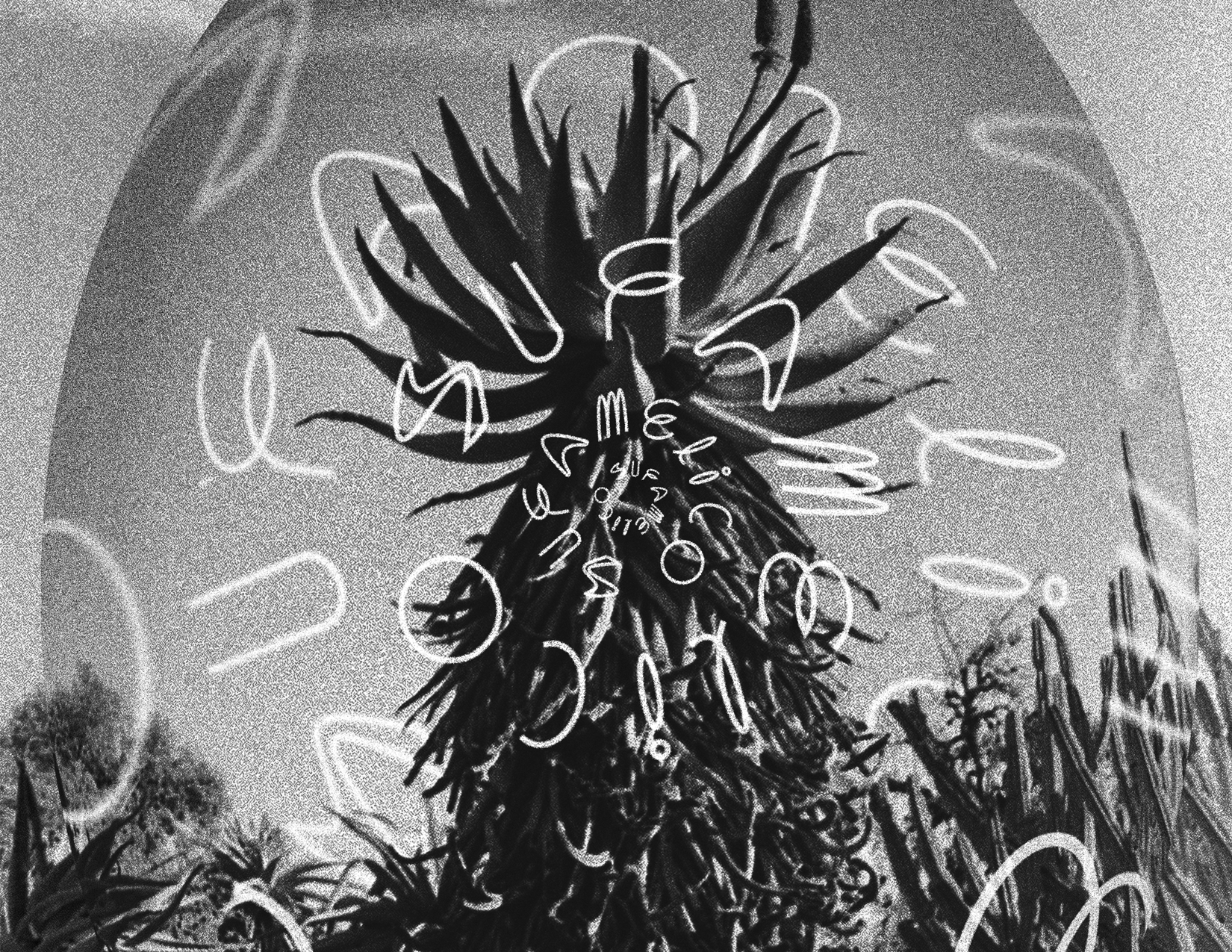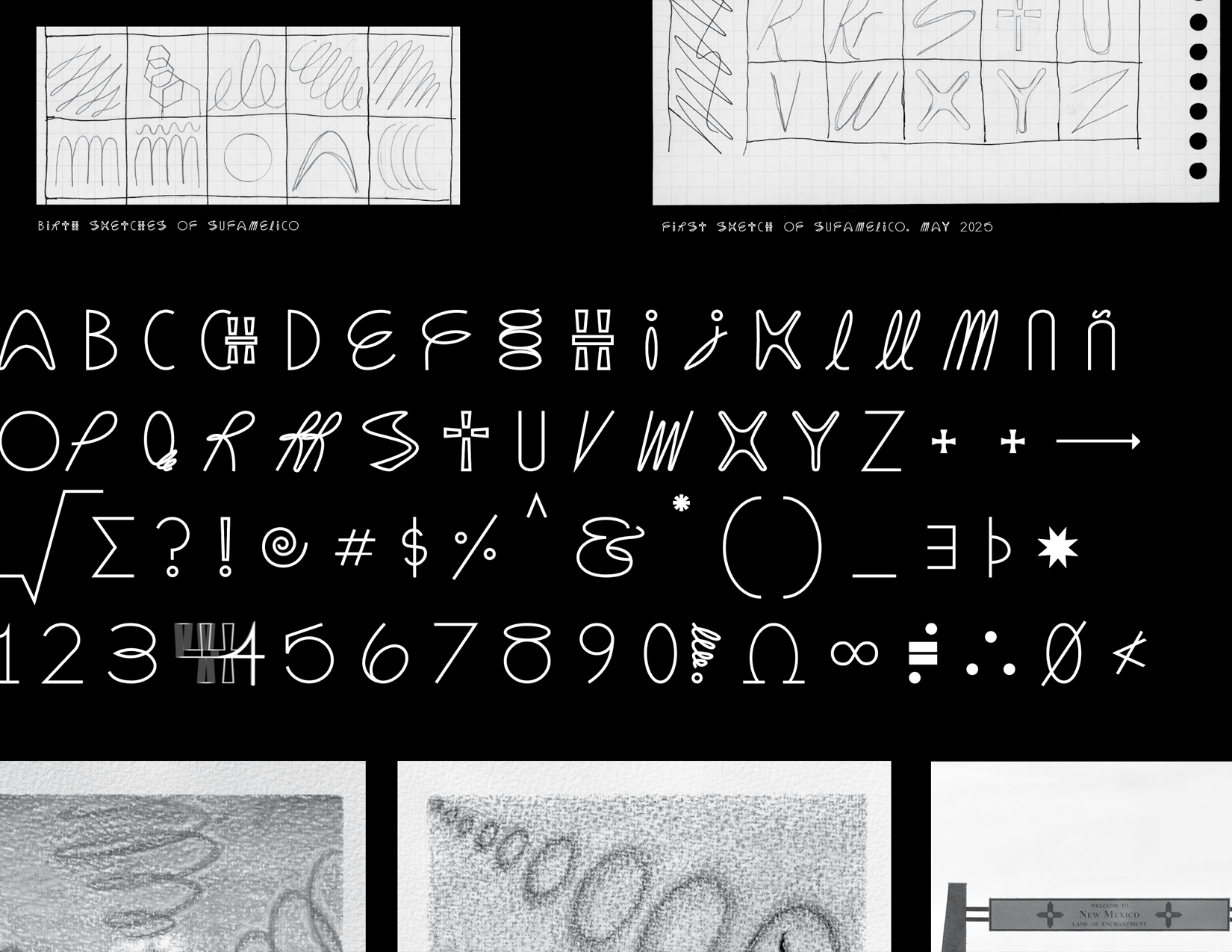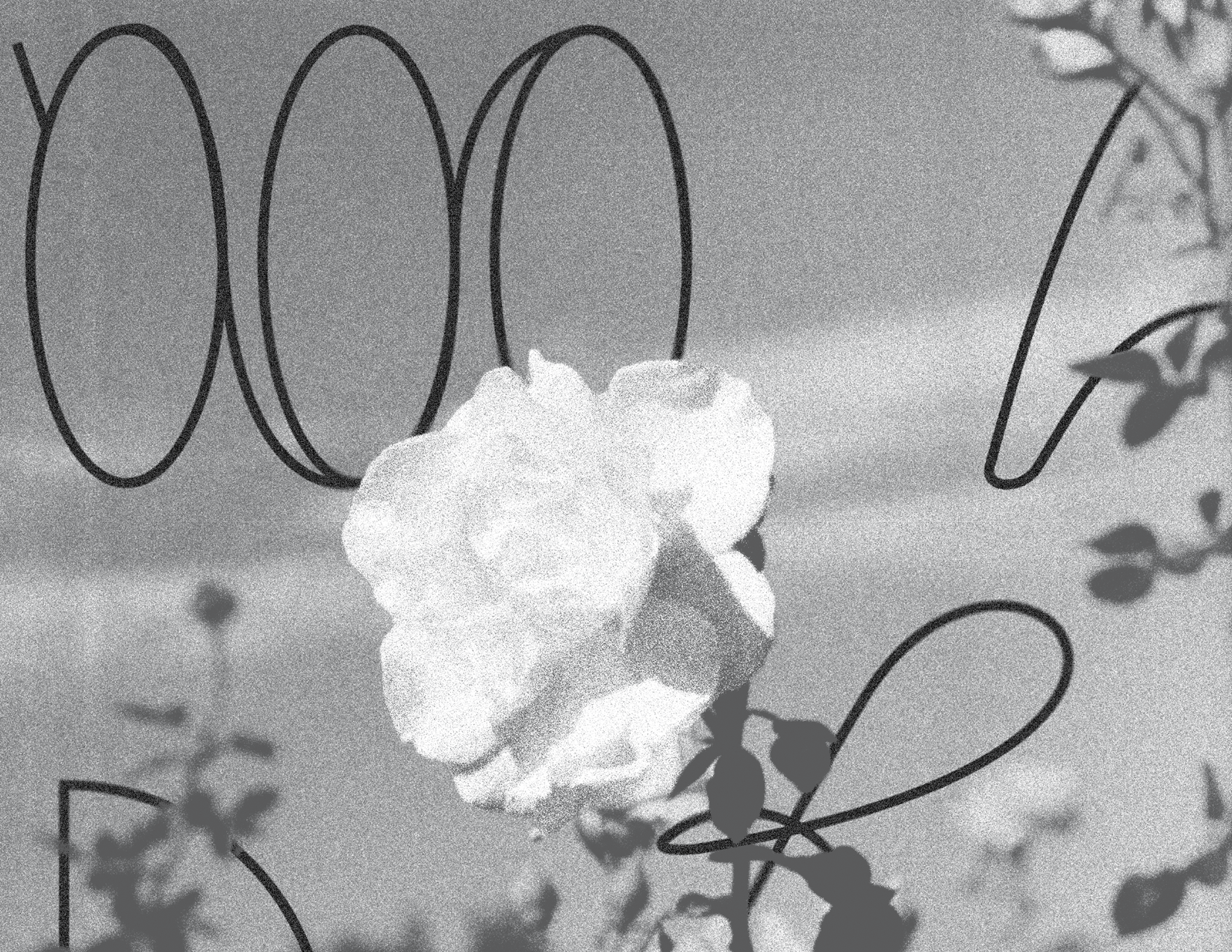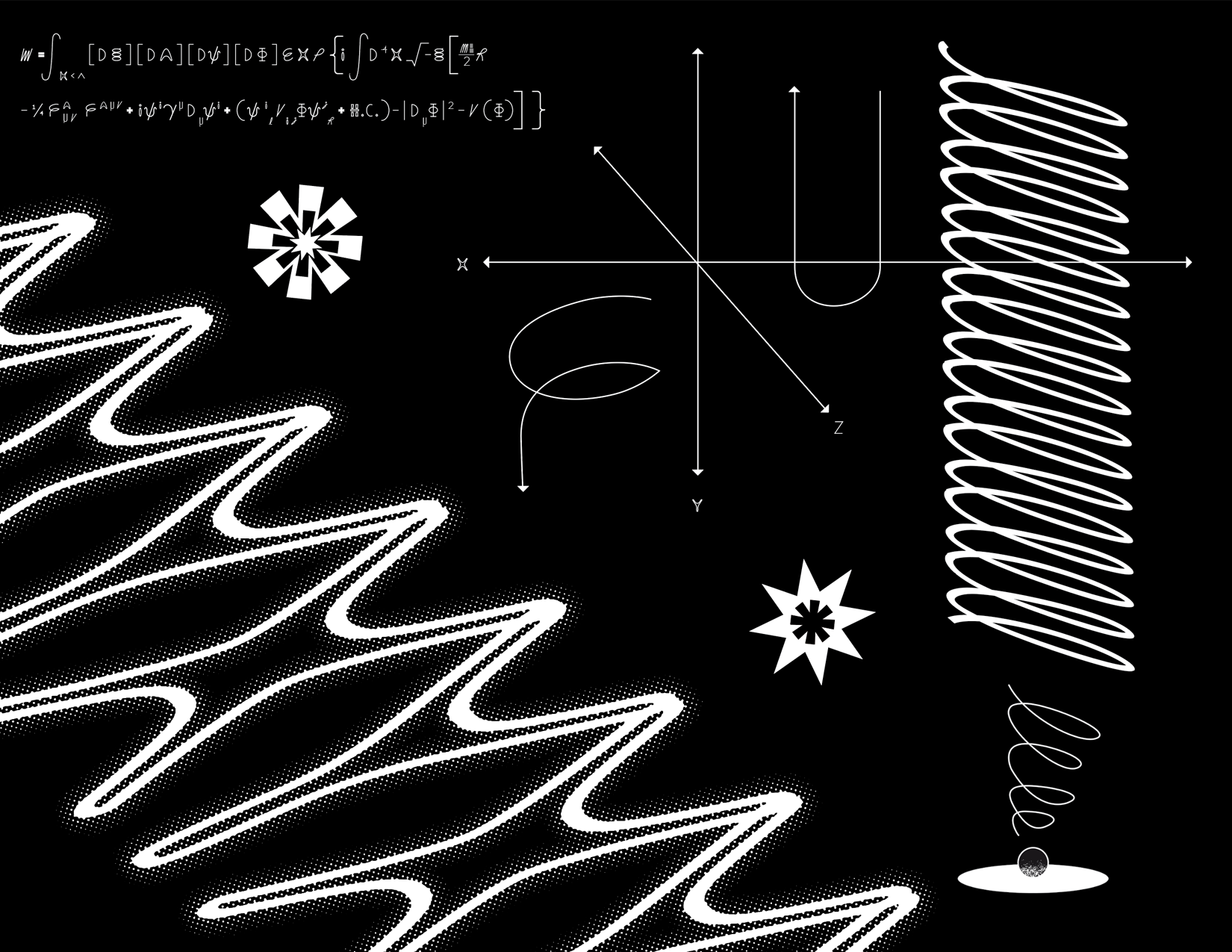
Sufamelico
A typeface inspired by shapes that appear in my personal work and “la clave SUFAMELICO”, a Spanish language cipher where the vowels are swapped with their partnering consonants (S & U, F & A, M & E, L & I, C & O) to create coded messages.
Designer(s): Wendy Robles, 2025